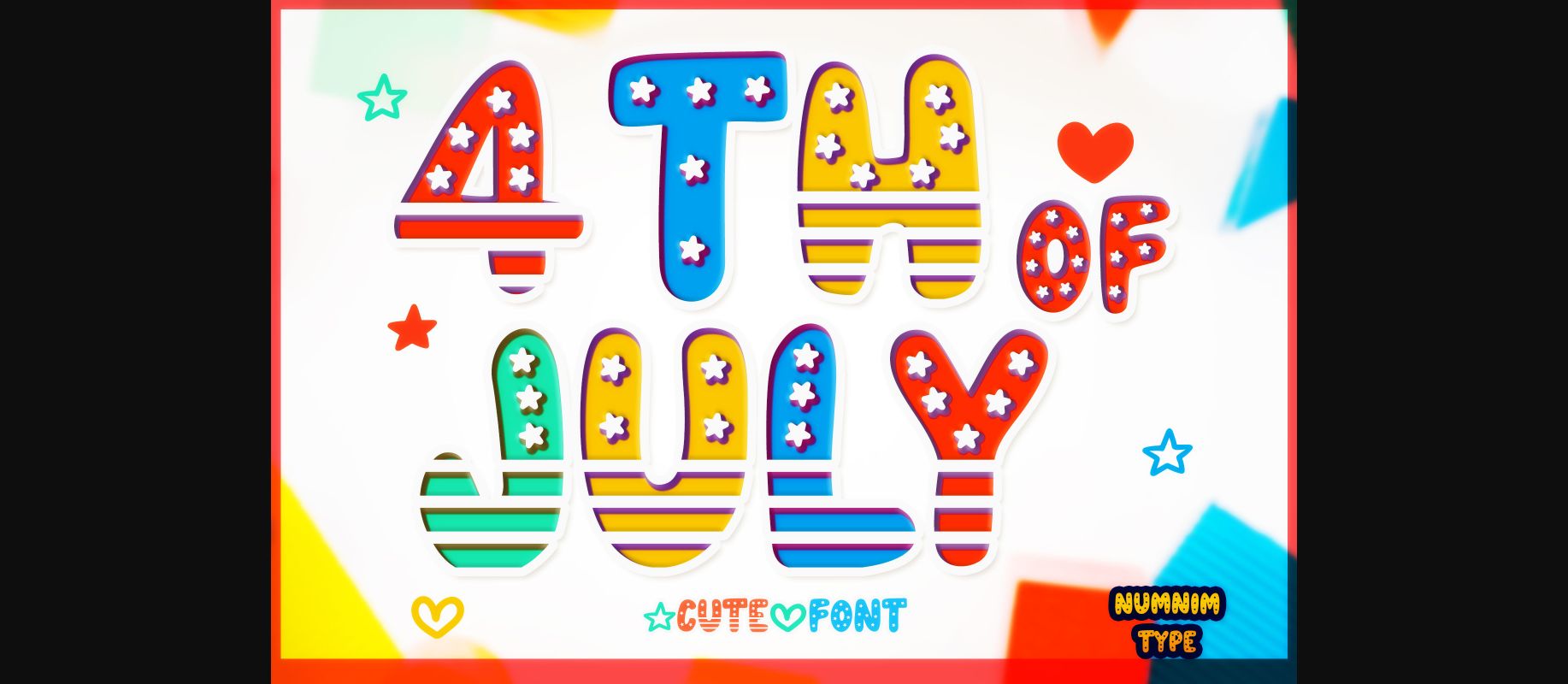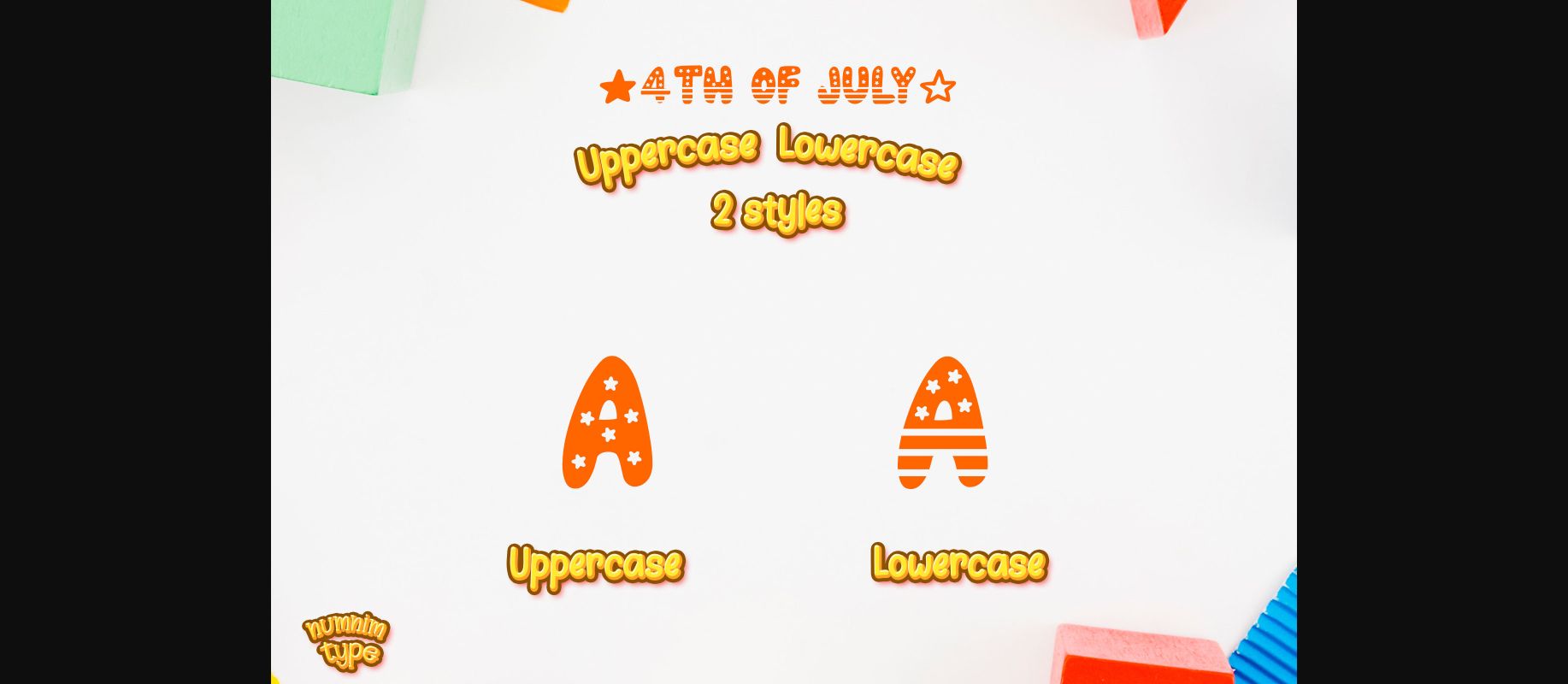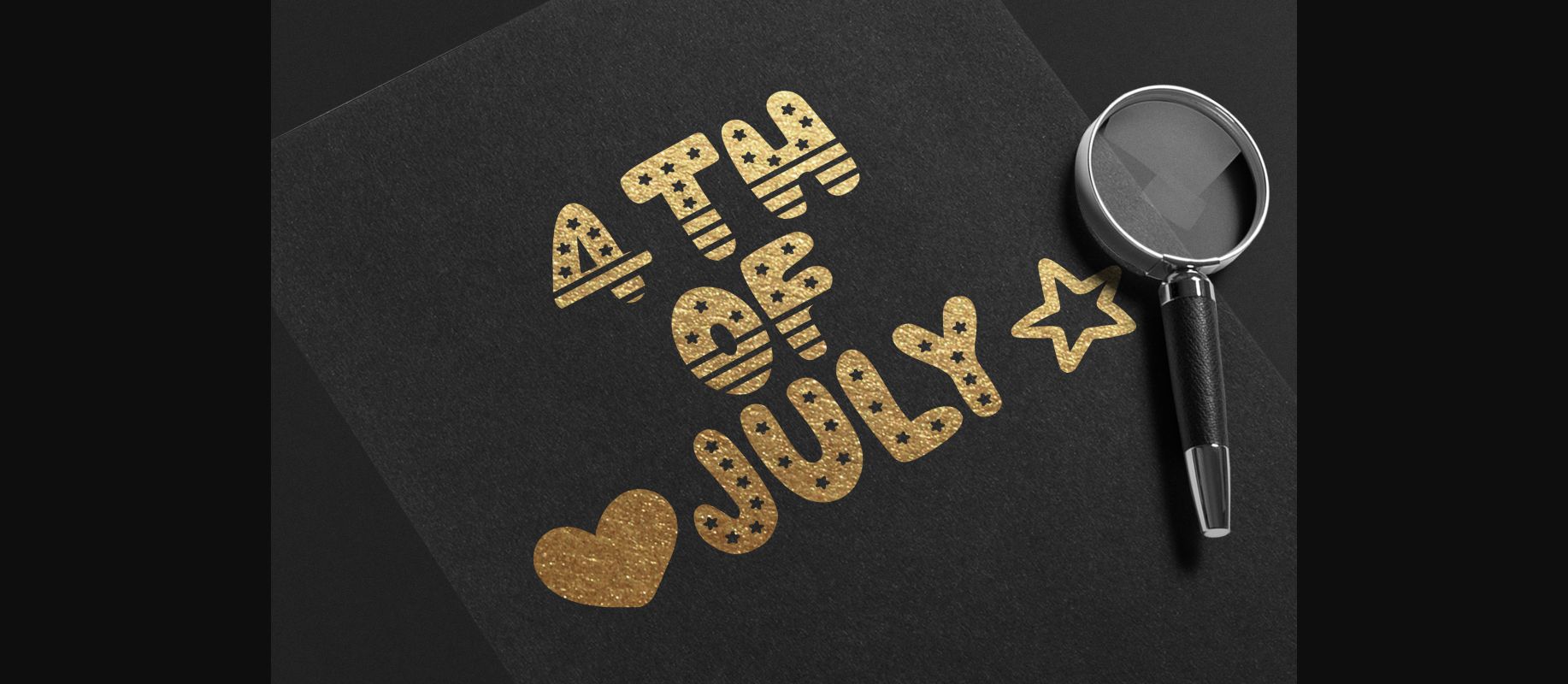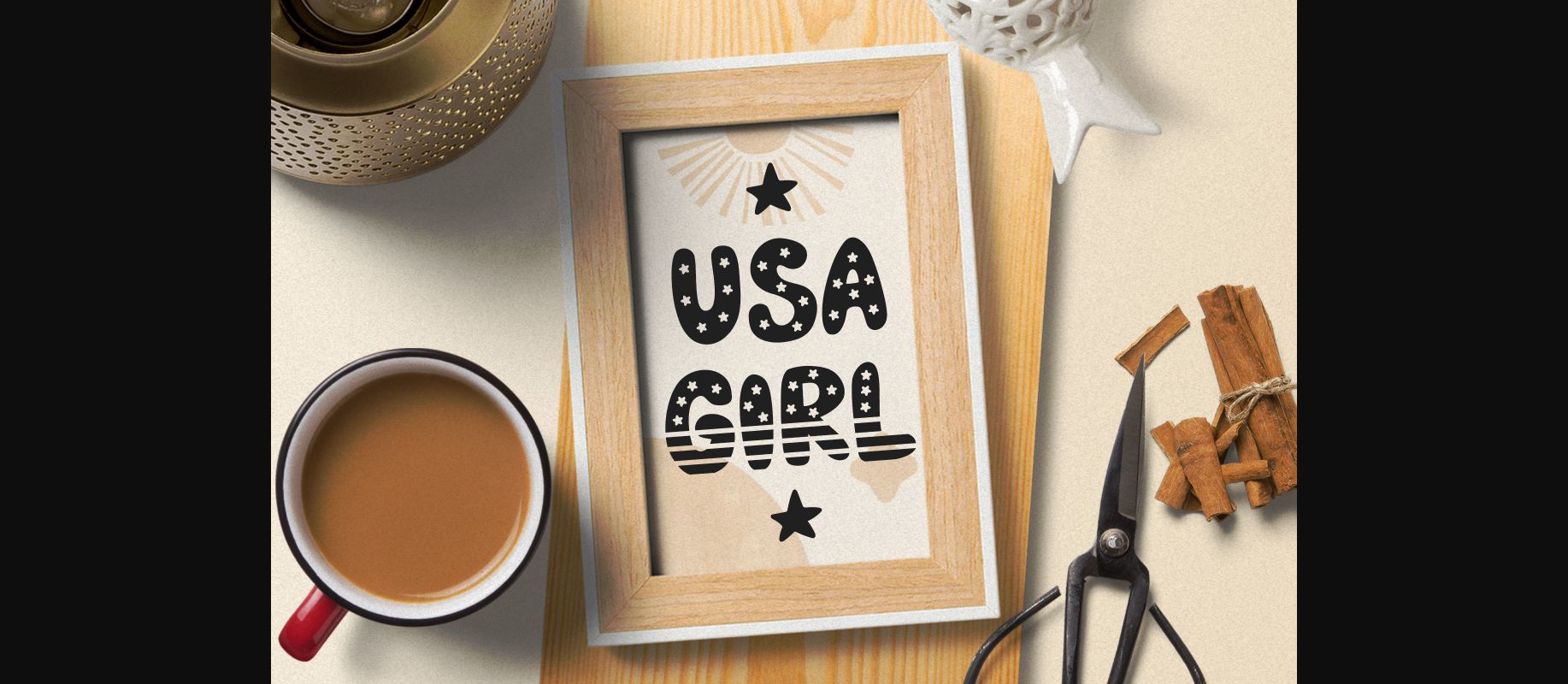
About 4th of July Font
4th of July is a cool and uniquely crafted decorative font. Its fun and playful characters make it the perfect font for stickers, mugs, t-shirts, ornaments, independence day event cards, event invitations, and many more! This font is PUA encoded which means you can access all glyphs and swashes with ease!